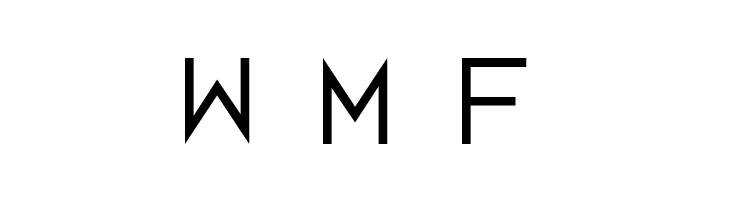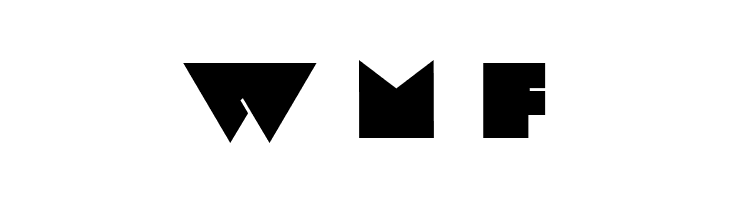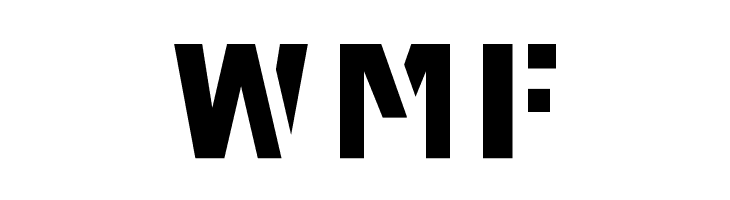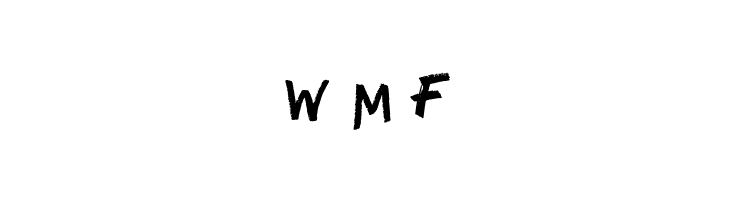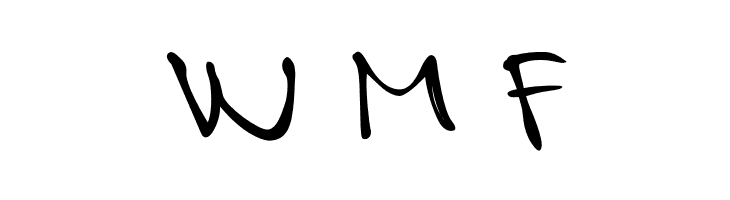
A bold, geometric font with strong, impactful characters and unique negative space.
A bold, textured, hand-drawn font with a dynamic and energetic style.
A modern, continuous line font with a geometric and futuristic style.
A bold, modern font with elongated vertical lines and sharp edges.
A bold, geometric display font with angular shapes and high contrast.
A classic blackletter font with sharp, angular strokes and high contrast.
A bold, Gothic-inspired font with sharp, angular strokes and wide characters.
A pixelated, dot-based font with a modern, tech-inspired style.
A dynamic, brush-style font with an informal, hand-drawn appearance.